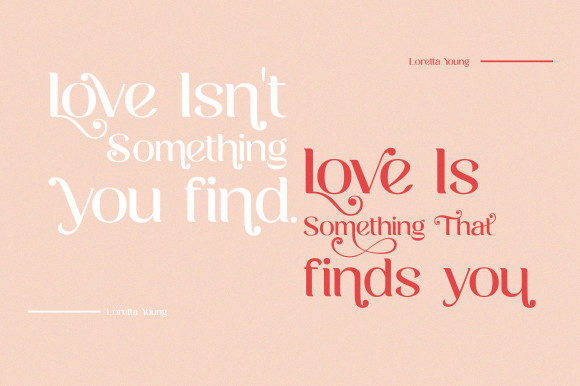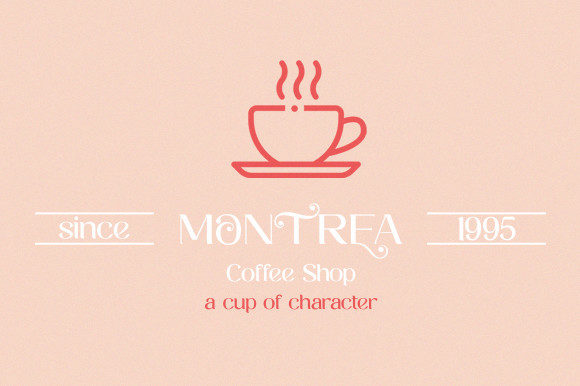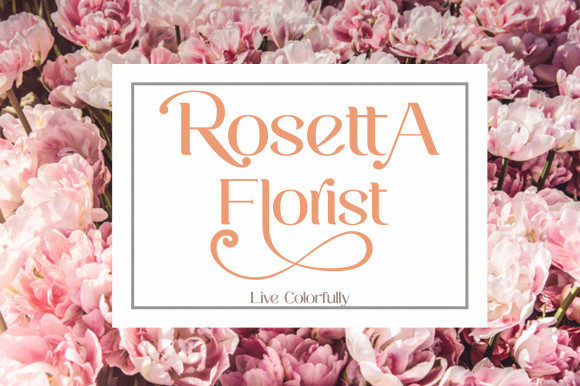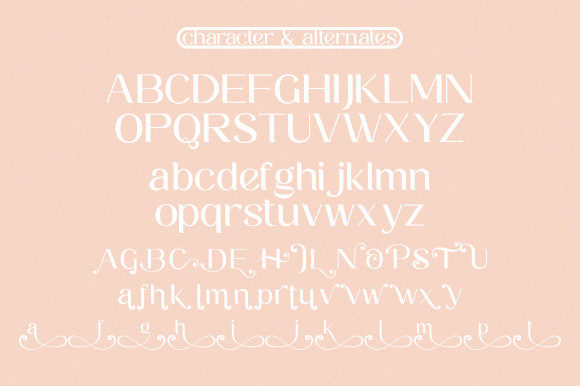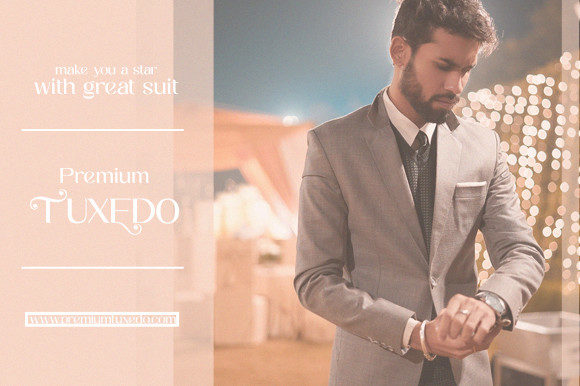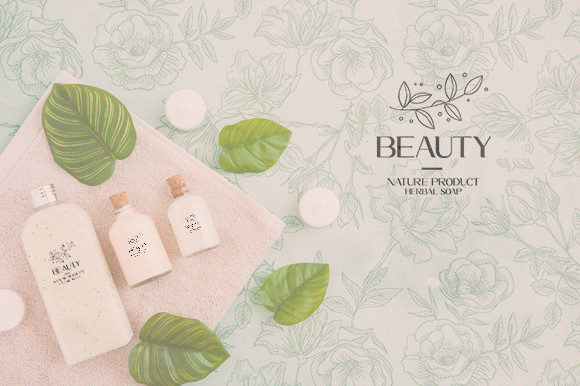
Introduction to Kaila Font
As a designer, have you ever found yourself staring at a blank canvas, desperately seeking the perfect font to bring your creative project to life? The hunt for that elusive, high-quality font can be a daunting task, but what if I told you that you’ve just stumbled upon one of the most versatile design resources out there? Say hello to Kaila Font, a stunning serif font that will elevate your designs to new heights.
Kaila Font is more than just a pretty face – it’s a game-changer for designers who crave elegance and sophistication in their work. With its bold yet delicate touch, this font seamlessly transitions from formal to informal designs, making it an invaluable addition to any designer’s toolkit.
Key Features of Kaila Font
- High-quality design resource perfect for creative projects, offering a unique and elegant aesthetic.
- Features a clean and modern design, ideal for use in various creative projects, including logos, branding, and typography-based designs.
- Supports a wide range of languages, making it a versatile choice for designers working on international projects.
- Includes a comprehensive character set, ensuring that designers have access to all the necessary glyphs and symbols for their creative project.
Honest Review: Kaila Font
As a designer, I’m always on the lookout for high-quality design resources that can elevate my creative projects. Recently, I had the chance to try out the Kaila Font, and I’m excited to share my honest review.
What works well: ✨ I was impressed by the clean and modern design of the Kaila Font. It’s perfect for creating a professional and sophisticated look in any project. The font is also highly legible, making it ideal for body text. Additionally, the font is available for free download, which is a huge plus for designers on a budget.
What’s not so great: ⚠️ While the Kaila Font is a great choice for many projects, it may not be suitable for all designs. The font has a transparent background, which can be a bit tricky to work with if you’re not familiar with layering. Additionally, the font may not be as customizable as some other fonts on the market.
Overall, I’m really impressed with the Kaila Font. It’s a high-quality design resource that’s perfect for designers looking for a clean and modern look. While it may have some limitations, the benefits far outweigh the drawbacks. I’d definitely recommend the Kaila Font for any creative project.
Key features:
- Clean and modern aesthetic
How to Use Kaila Font
Getting the Most Out of Kaila Font
To maximize the effectiveness of Kaila Font, use it in conjunction with other design elements that complement its style. Experiment with different font sizes, colors, and arrangements to find the perfect balance for your creative project. You can also use the font in combination with graphics, images, and other design elements to create a visually appealing design.
Kaila Font is ideal for various design projects, including logos, business cards, brochures, and social media graphics. Its high-quality design and transparent background make it perfect for creating eye-catching designs that grab attention.